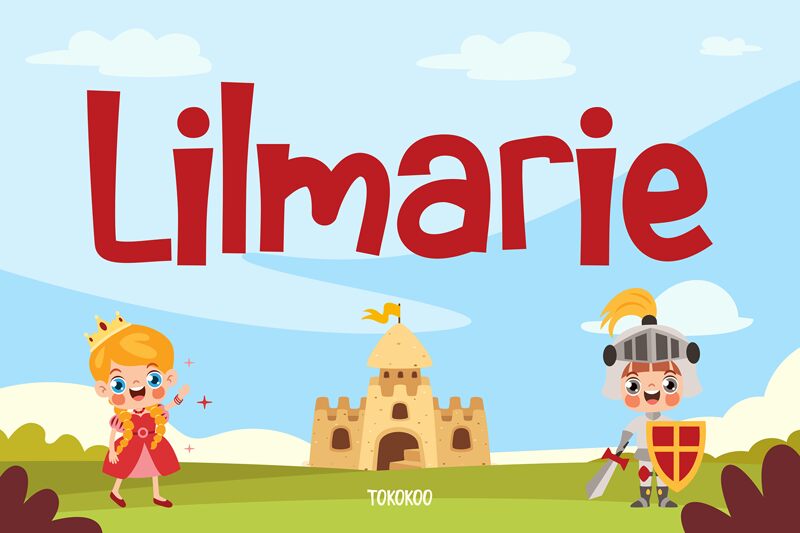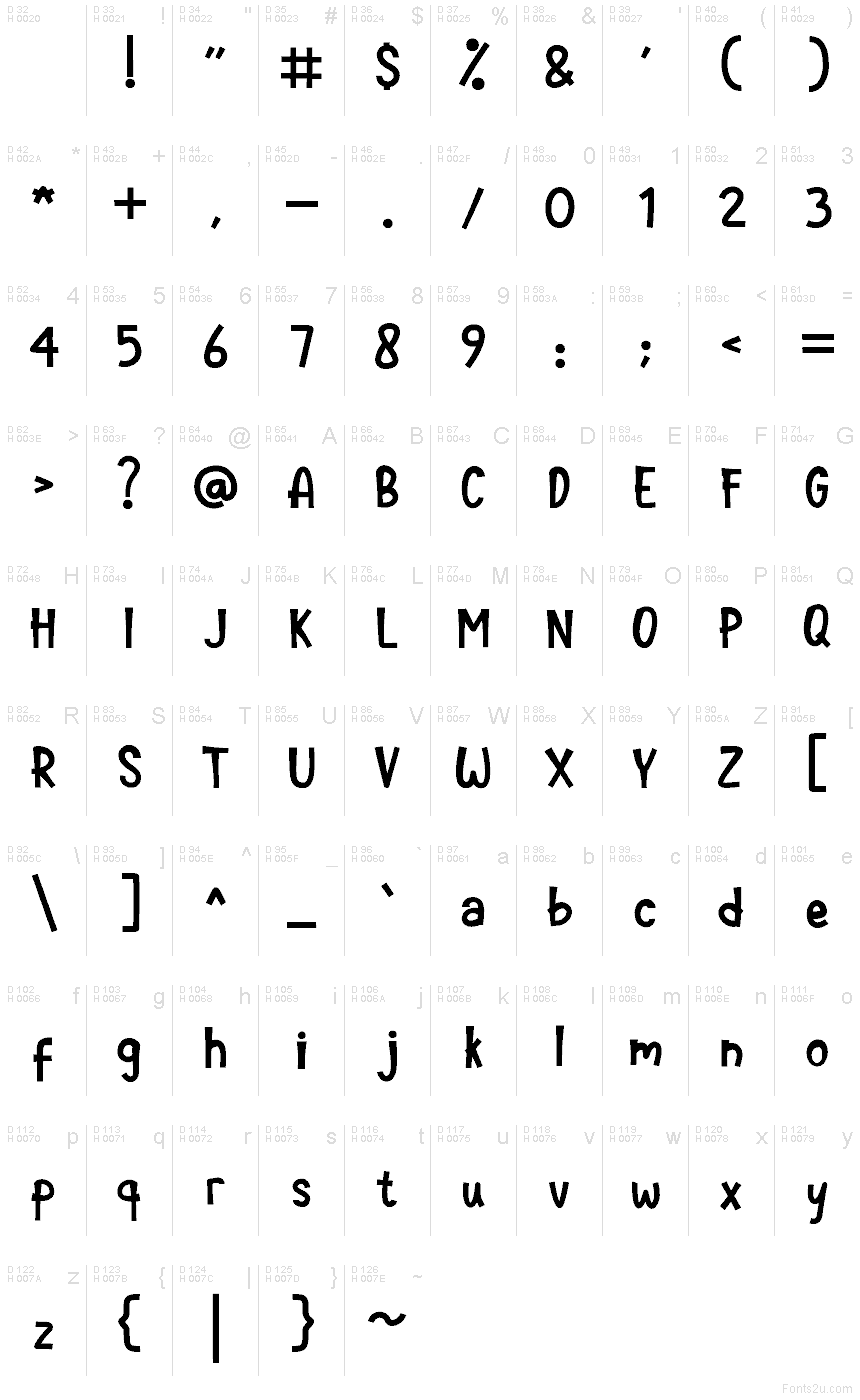
Lilmarie
Lilmarie font by Tokokoo Studio is a free cartoon display typeface with a bold, hand-drawn bounce that feels straight off a storyboard. Its chunky strokes, playful curves, and slightly uneven rhythm give text a scribbled, kid-at-heart energy, while still staying clean enough to read at a glance. The letters feel inky and friendly, like they were painted with a thick marker on poster board—casual, loud, and full of character.
Using Lilmarie, headlines and logos instantly take on a fun, animated voice that works beautifully for children’s book covers, toy packaging, birthday invitations, YouTube thumbnails, party décor, and playful brand identities. This free font shines at larger sizes where its wobble and weight can really show. Try pairing Lilmarie with a simple geometric sans for body copy and let Lilmarie handle the loud, sticky-sweet titles.